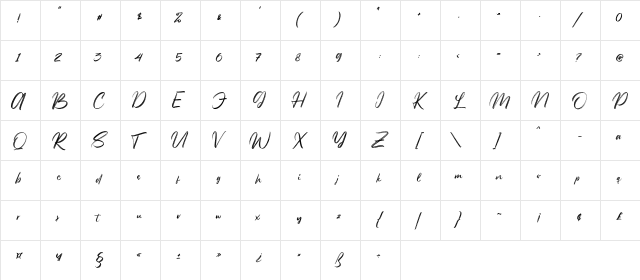
Starbricks Regular
| Foundry | Garisman Studio |
| Designer | Risman Ginarwan |
Design Context for Starbricks Typeface
Starbricks is a composed and adaptable typeface that performs quietly and consistently across a wide range of design contexts.